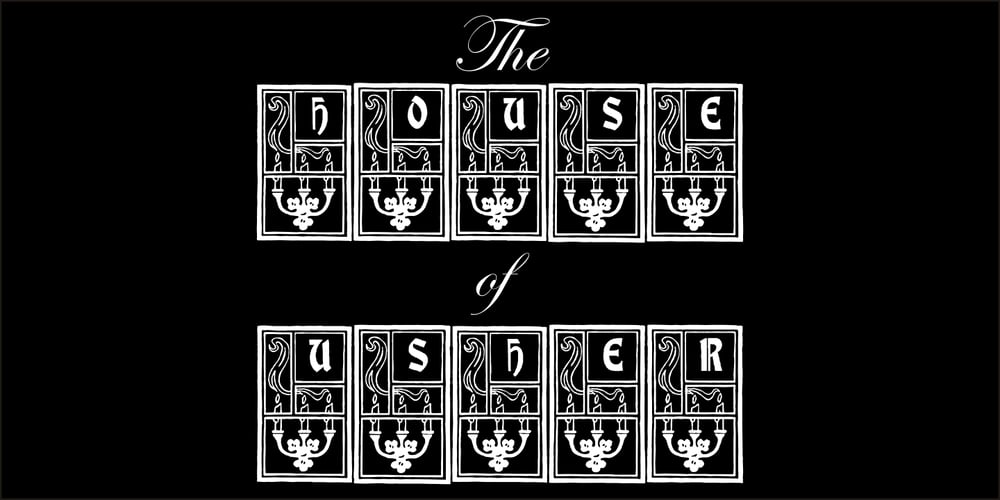
The House Of Usher Font Family was designed by Paulo W and published by Intellecta Design. The House Of Usher contains 1 styles and family package options. The House Of Usher is a beautiful set of decorative initials, mixing Victorian style in the boxes with gothics capitals. Perfect for beginning of paragraphs in artistic publications, storybooks and several texts conveying the feel of the Art Nouveau period with the gothic writing.